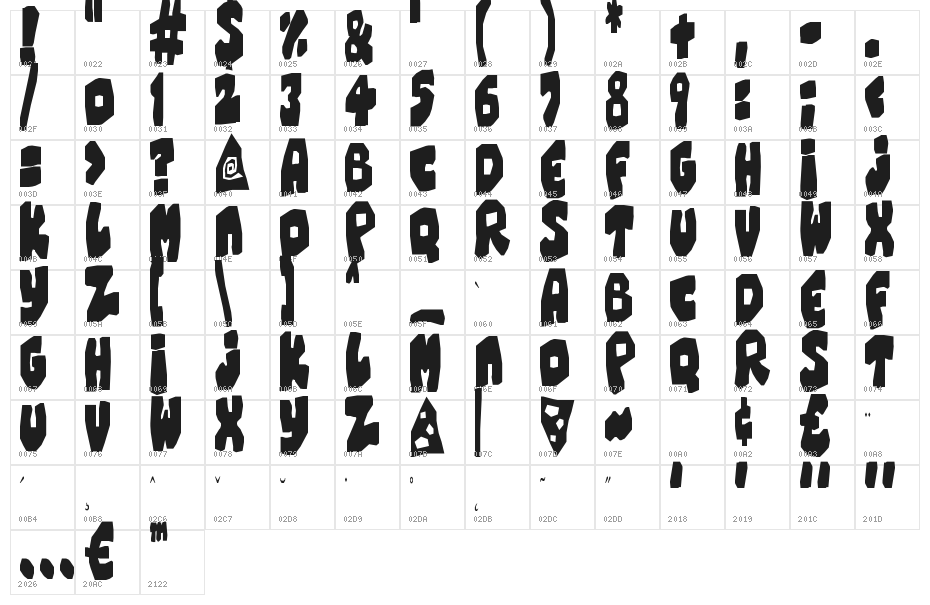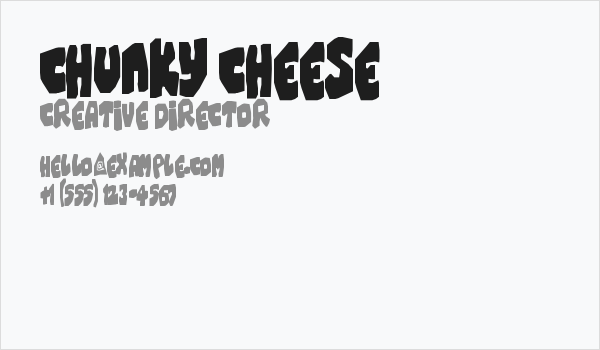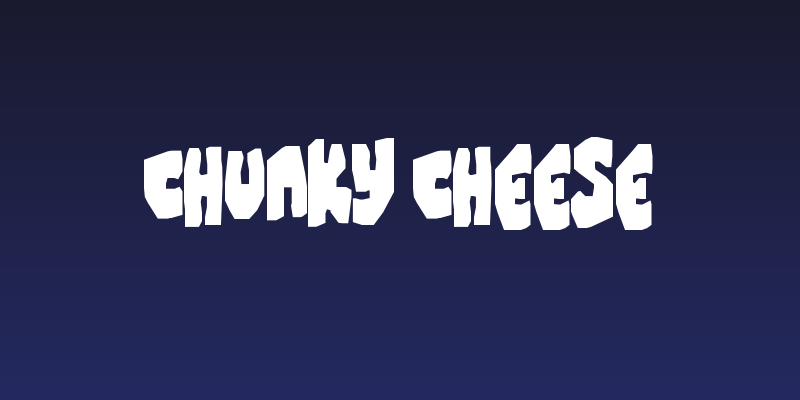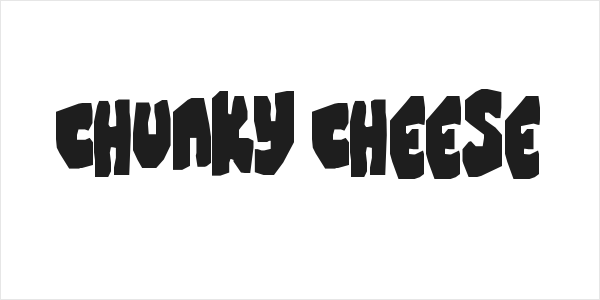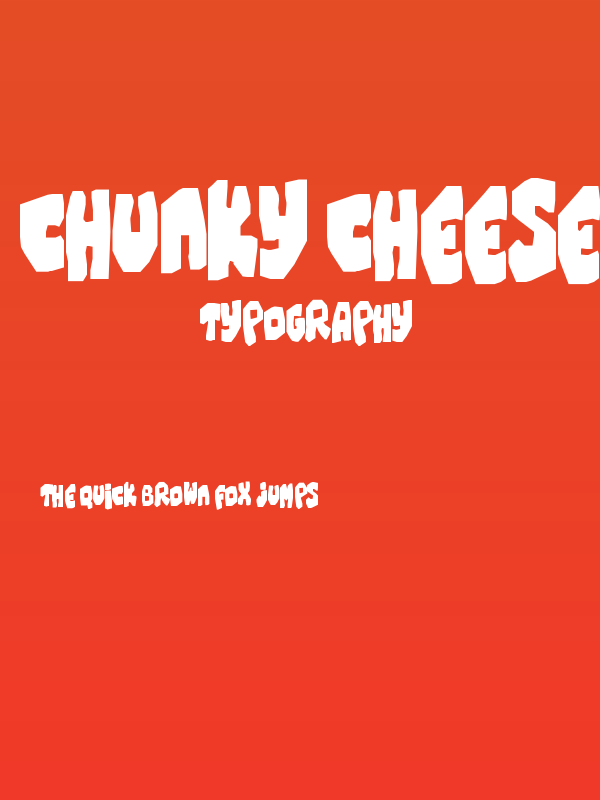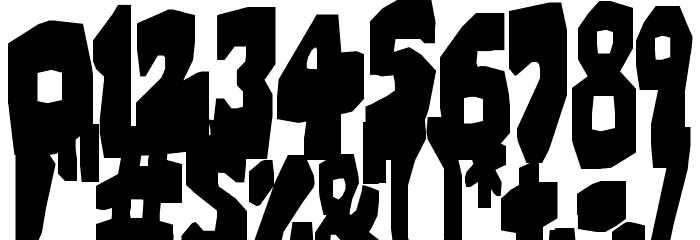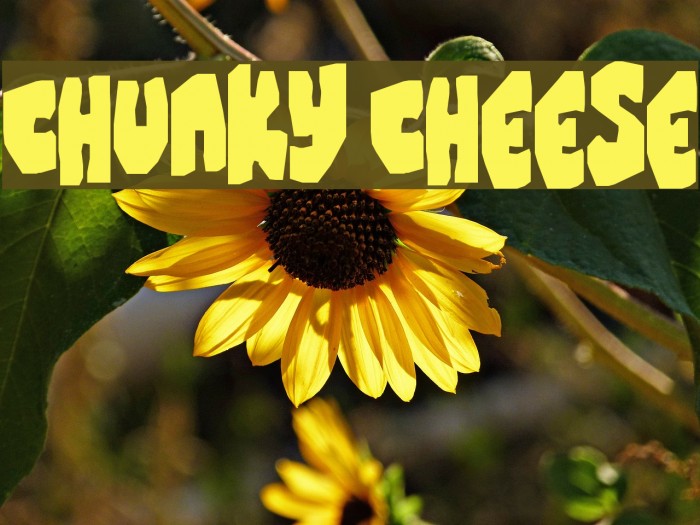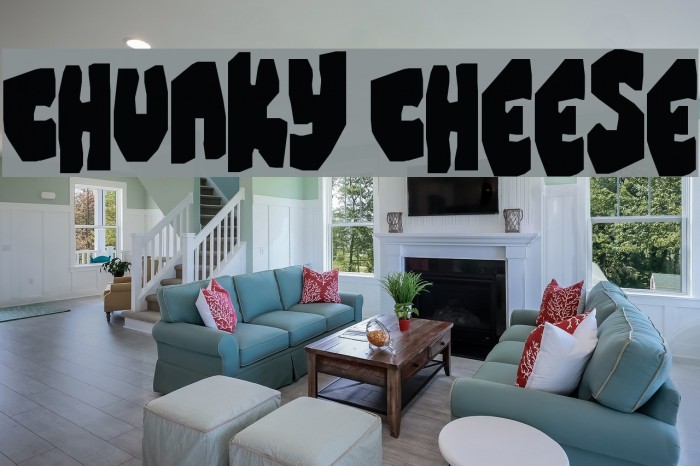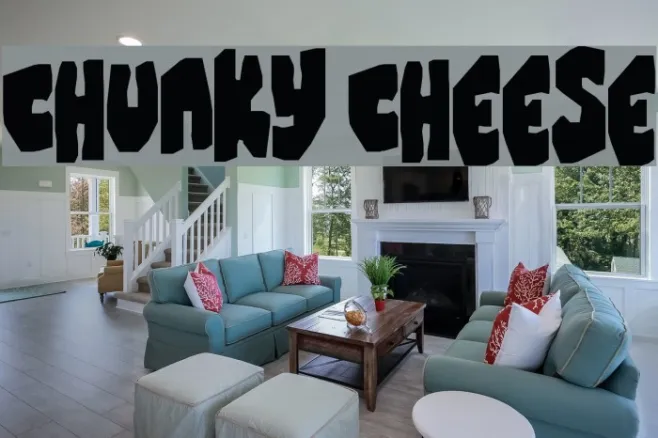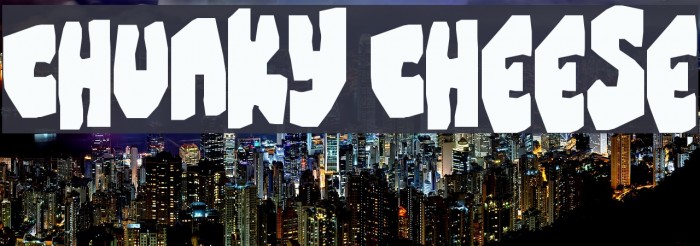
Chunky Cheese Font
Chunky Cheese Description
This font features a bold, playful design with chunky, irregular shapes that give it a fun and whimsical appearance. The letters are heavily stylized, with exaggerated forms and uneven edges, creating a sense of movement and energy. The overall look is reminiscent of hand-cut paper or graffiti, making it stand out with its unique character. The numbers and special characters follow the same bold and quirky style, ensuring consistency across all elements. This font is perfect for projects that require a lively and eye-catching typeface.
| Overall Style | Playful, Whimsical, Energetic |
| Proposed Projects | Ideal for children's books, playful branding, posters, and event invitations. |